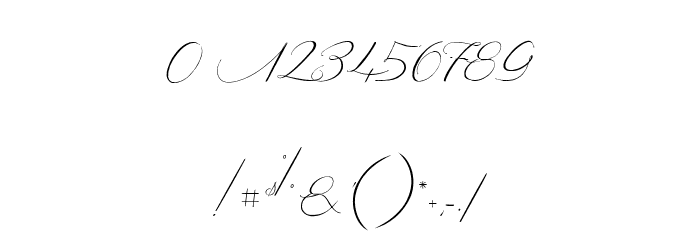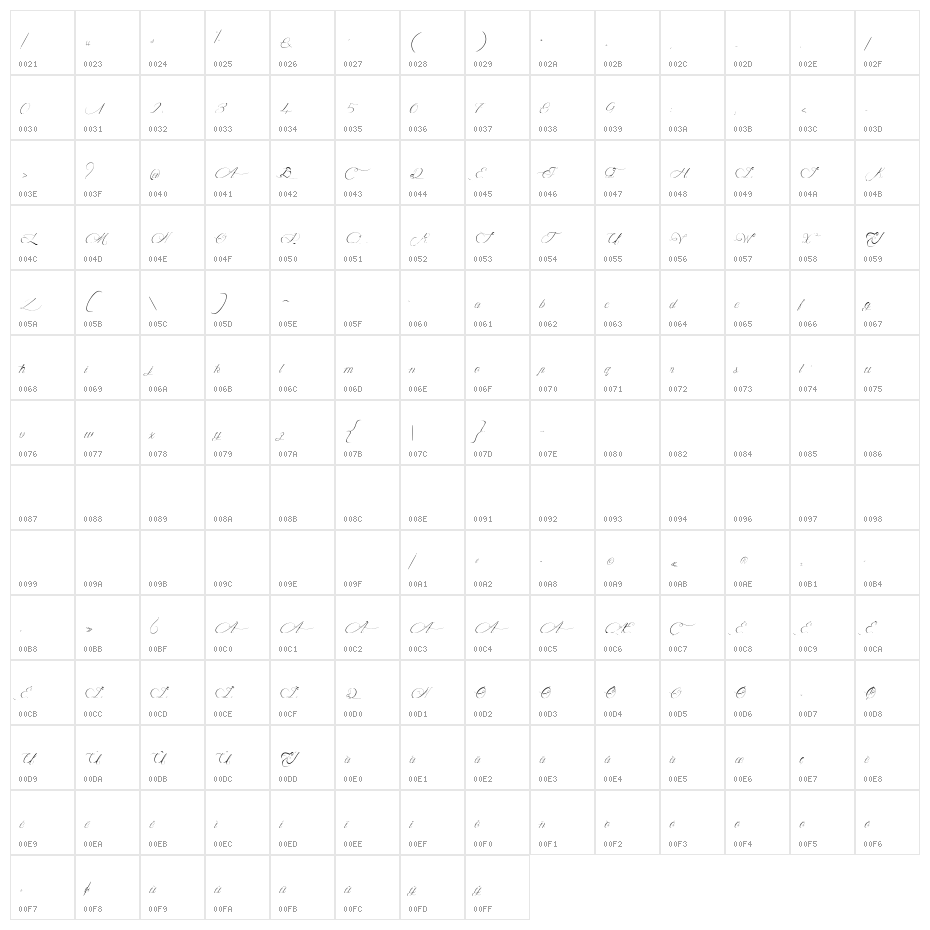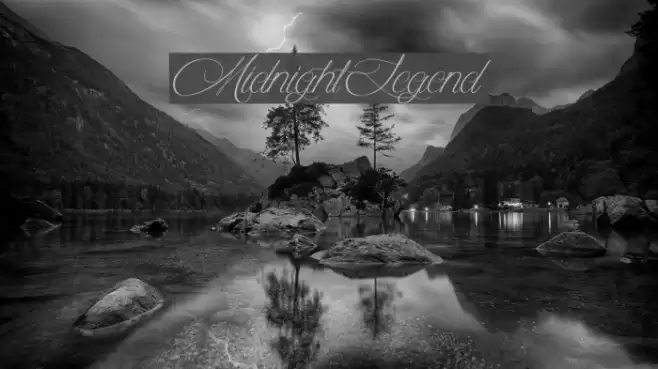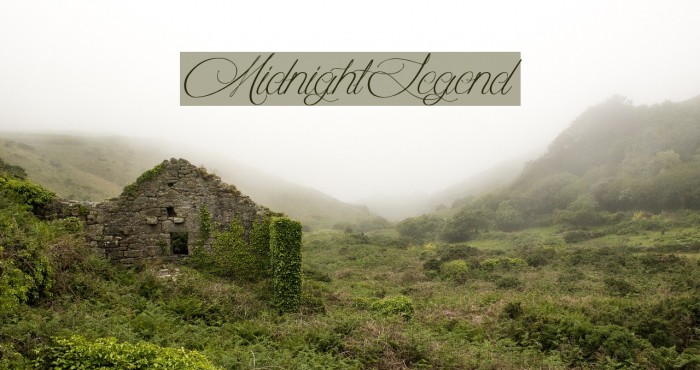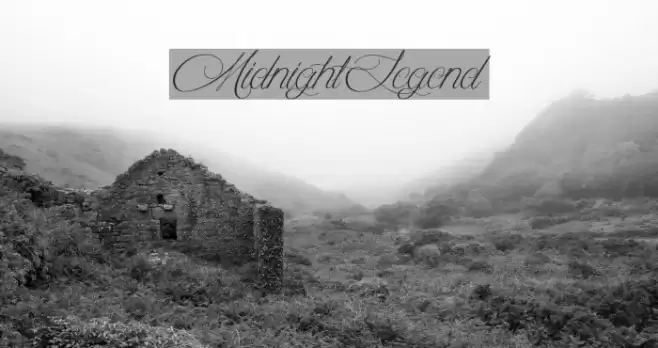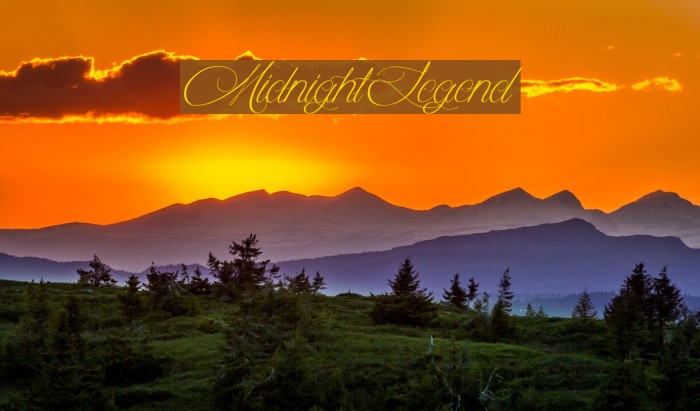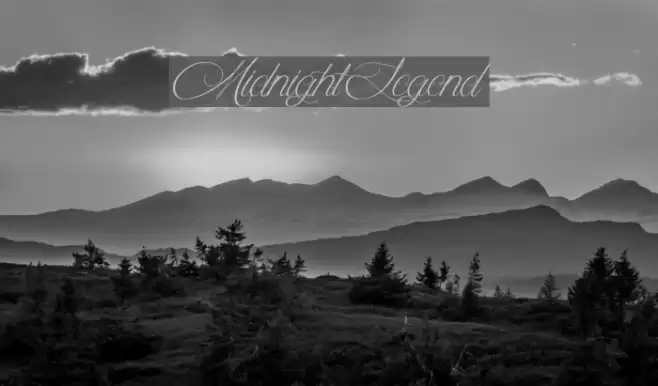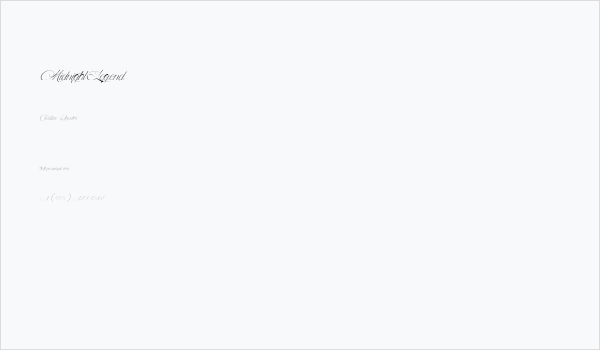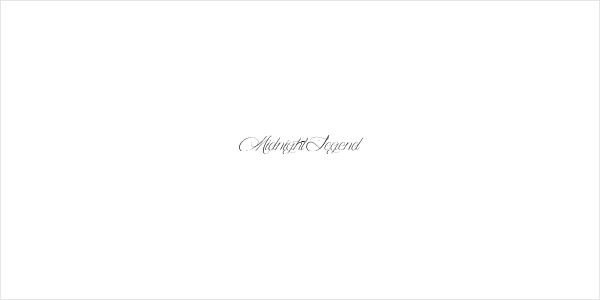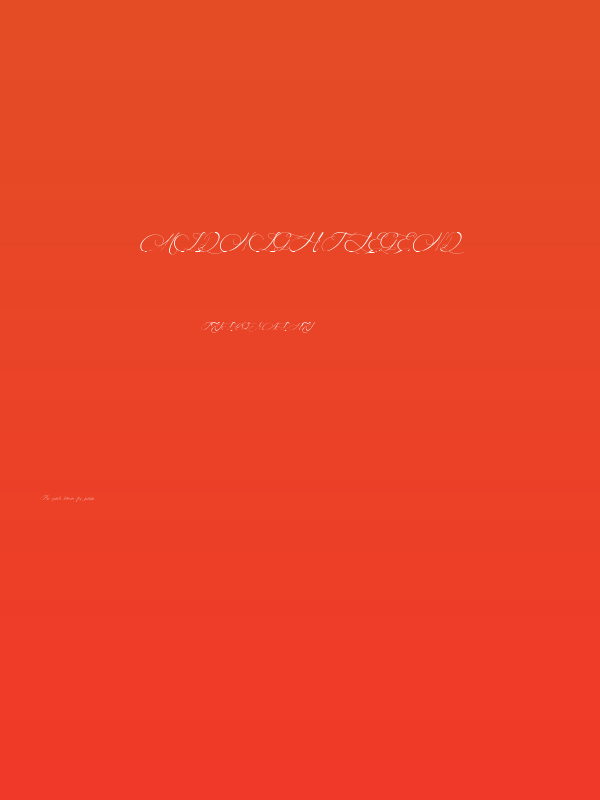
MidnightLegend Font
This font exudes elegance and sophistication with its intricate, flowing script style. The characters are highly decorative, featuring elaborate loops and swirls that give it a luxurious and artistic feel. The uppercase letters are particularly ornate, with sweeping ascenders and descenders that create a sense of movement and grace. The lowercase letters maintain a consistent style, complementing the uppercase with their own delicate flourishes. The numerals and special characters are designed with the same attention to detail, ensuring a cohesive look across all elements. This font is perfect for projects that require a touch of elegance and refinement.